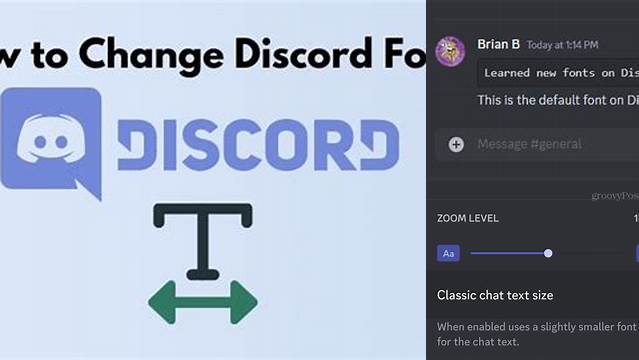
Best Discord Fonts: Ultimate Text Styling Guide
Hey guys! Ever wondered how to spice up your Discord chats with fancy fonts? You're in the right place! Changing your text font on Discord can add a whole new level of personality and flair to your messages. Whether you want to stand out in a crowded server or just want to express yourself in a unique way, using different fonts is a fun and easy way to do it. In this guide, we'll dive deep into how to change text fonts on Discord, exploring various methods, tools, and tips to make your text pop. From simple tricks using built-in features to external font generators, we've got you covered. So, buckle up, and let's get started on transforming your Discord text from bland to grand!
Understanding Discord's Text Formatting Limitations
Before we jump into the fun stuff, let's talk about Discord's built-in text formatting options. Discord, by default, supports a limited set of text formatting styles using Markdown. This includes bold text (using **), italic text (using *), and code blocks (using backticks ``). However, it doesn't natively support a wide variety of fonts like you might see in a word processor. This is where things get interesting! Because Discord doesn't offer a built-in font selection, we need to explore alternative methods to achieve those cool, stylish fonts you've been admiring in other chats. It's important to understand these limitations because it sets the stage for why we need third-party tools and workarounds. While Discord is constantly evolving, the core text formatting capabilities remain relatively basic. Knowing this helps set the stage for using some tools which are the main point of this article, therefore you can have an easier time using the information. The built-in options are handy for emphasis, but they don't offer the visual variety that many users crave. With the advent of third-party tools, font customizations in Discord have become significantly easier to implement. So, if you want more than just bold and italic, you'll need to explore these options.
One of the primary limitations is the lack of direct font selection. Unlike applications like Microsoft Word or Google Docs, where you can choose from a wide array of installed fonts, Discord doesn't provide a similar feature. Instead, it relies on the standard system fonts for rendering text. This means you won't be able to select fonts like Times New Roman, Arial, or Comic Sans directly within the Discord interface. Another limitation is the support for special characters and symbols. While Discord does support a variety of Unicode characters, not all fonts may render these characters correctly. This can lead to some fonts appearing as boxes or question marks if the user doesn't have the necessary font installed on their system. This is especially true when using font generators that create custom text styles through Unicode characters. Finally, another potential issue is the visual consistency across different devices and platforms. The way a font appears on a Windows PC might vary slightly on a Mac, iOS, or Android device. This variation can make it challenging to ensure that your text looks exactly as you intend it to across all users. Therefore, it's a good idea to test your custom fonts on multiple devices if the correct rendering is important to you. Despite these limitations, there are several workarounds that can help you achieve the desired text formatting effects. The most common method involves using font generators that convert your text into a specific style using Unicode characters. These tools effectively create the illusion of different fonts without requiring users to install any additional fonts on their systems. However, it's also useful to be aware of these limitations so you can make informed decisions about how to customize your Discord text.
Using Font Generators to Customize Your Discord Text
Alright, let's get to the good stuff: using font generators! Font generators are online tools that convert your plain text into various stylized fonts. They work by using Unicode characters to create the appearance of different fonts. Think of it as a clever trick that fools Discord into displaying text differently. There are tons of these generators available online, and they're generally super easy to use. You just type your text into the generator, and it spits out your text in a variety of cool fonts. Then, you just copy and paste the stylized text into your Discord chat. Simple as that! Now, let's talk about some of the best font generators out there.
One popular and user-friendly option is YayText. YayText offers a clean interface and a wide selection of font styles, from fancy and cursive to bold and gothic. It's really straightforward to use: just enter your text, and you'll see it converted into various fonts. Another great option is Lingojam. Lingojam offers more of a unique experience, allowing you to create text with different fonts, styles, and symbols. Some of its features include Zalgo text, which is perfect for creating glitchy and distorted effects, and text that can be used in most social media and apps. Both YayText and Lingojam are free, and you don't need to download any software to use them. You can access them directly through your web browser on any device. The generators are also very user-friendly, making them perfect for anyone new to customizing their text in Discord. These font generators typically offer several different font styles, including bold, italic, monospace, cursive, and various other stylized fonts. Each generator might have a slightly different selection of fonts, so feel free to experiment with a few different generators to find the styles that you like the best. Once you've found a font you like, just copy the formatted text from the generator and paste it directly into your Discord chat. Remember that although the text might look different in the generator, it should appear the same way for anyone who reads your message. Now, a word of caution: Because these font generators use Unicode characters, some fonts might not render correctly on all devices or platforms. While most modern devices should display the text without issues, older devices or less common operating systems might have rendering problems. In most cases, the text should still be readable, but it might not appear in the exact style you intended. In general, these generators are a great way to add personality to your Discord messages. They're easy to use, offer a wide variety of styles, and can make your text stand out from the crowd. So, don't be afraid to try out a few different font generators and experiment with different styles until you find the ones that you love!